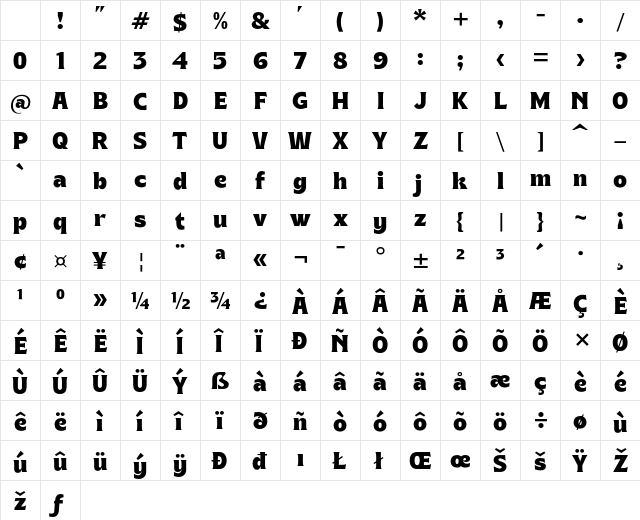
Complete Brick Records Regular glyph index. Displaying only characters natively supported by Brick Records Regular font.
Brick Records is a composed and adaptable typeface that performs quietly and consistently across a wide range of design contexts.